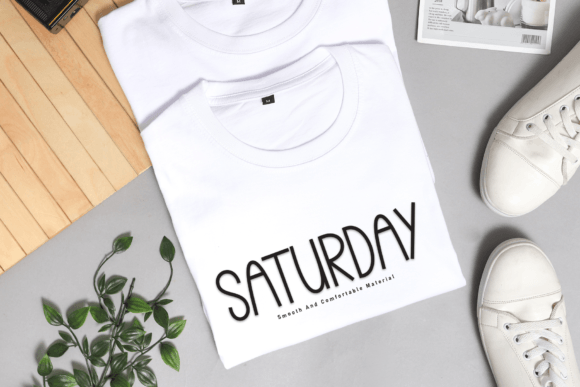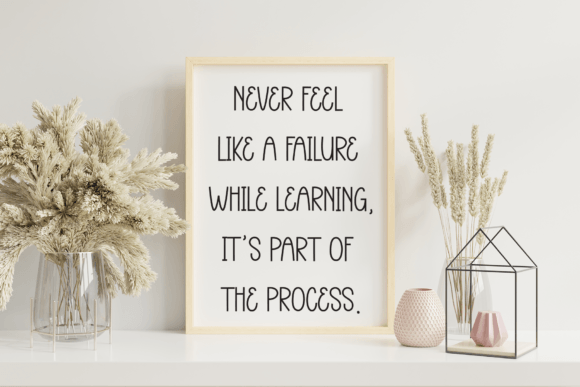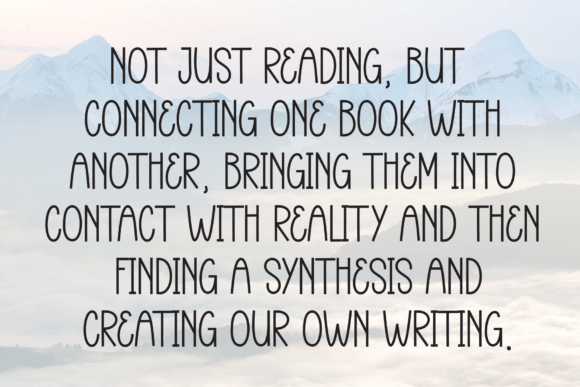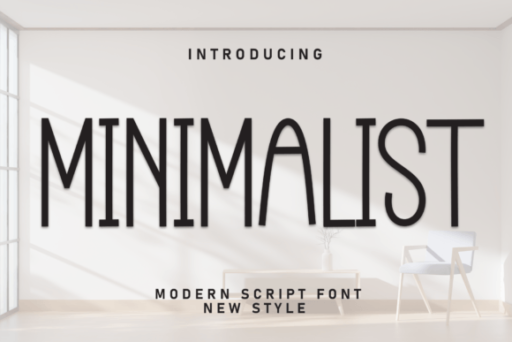
Minimalist Font
Minimalist is a cute and friendly font that adds charm to any design. Perfect for wedding invitations, greeting cards, and creative projects.
Features:
Handwritten, natural style
Soft and playful letter design
Perfect for weddings & invitations
Great for quotes, cards & branding
Minimalist Font is a Script And Handwritten font that brings a professional and versatile look to your projects. Minimalist is a cute and friendly font that adds charm to any design.